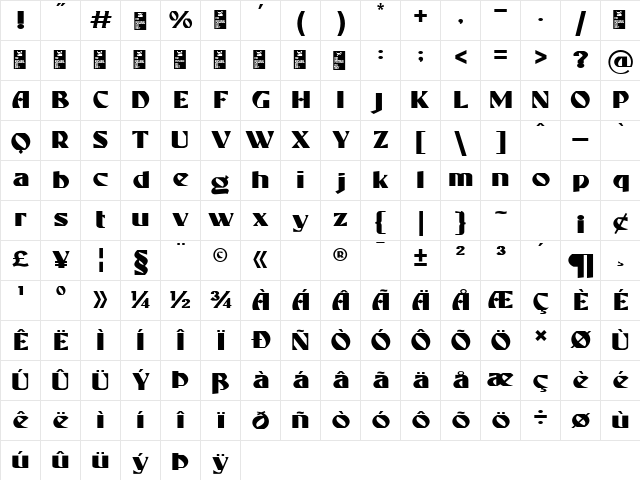
ROSEFORD DEMO Regular
Design Context for ROSEFORD DEMO Typeface
ROSEFORD DEMO is a composed and adaptable typeface that performs quietly and consistently across a wide range of design contexts.
Pro Tip: Use ROSEFORD DEMO in both headline and body roles to test its range before committing to a single application.